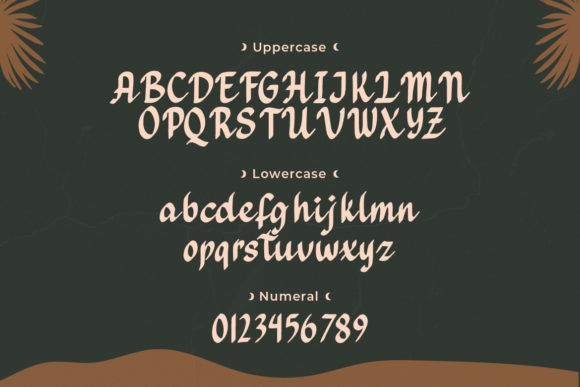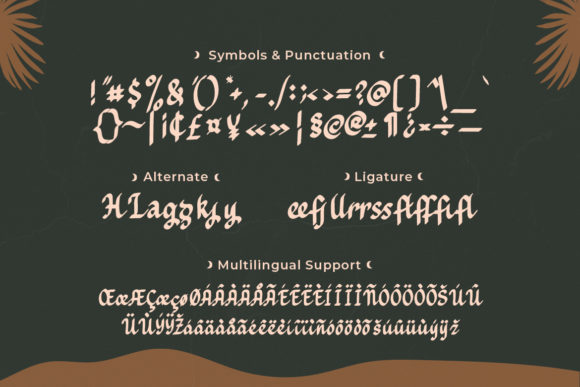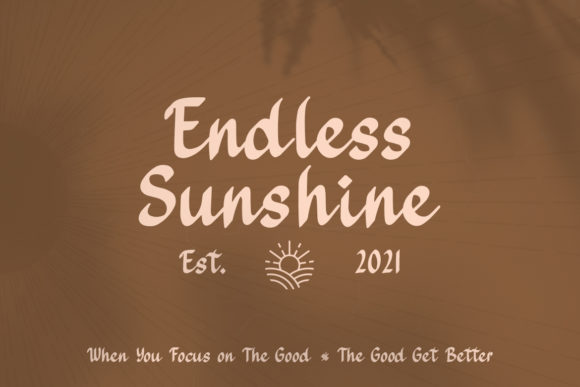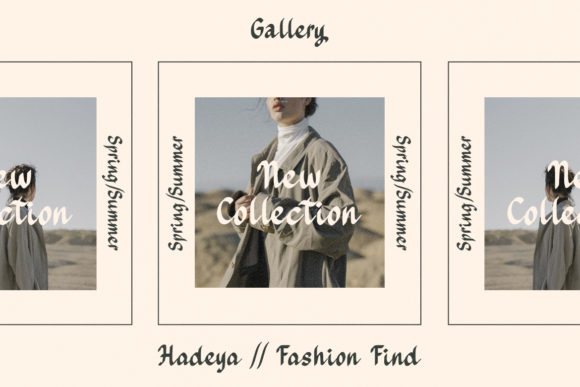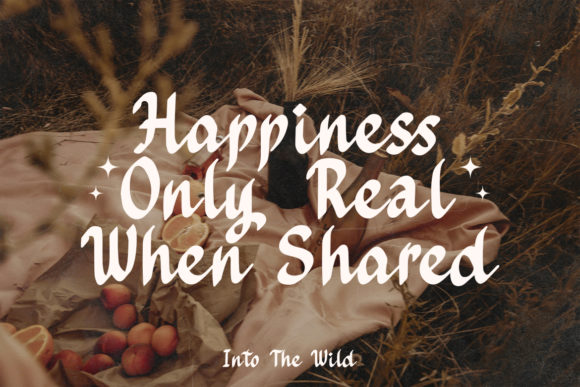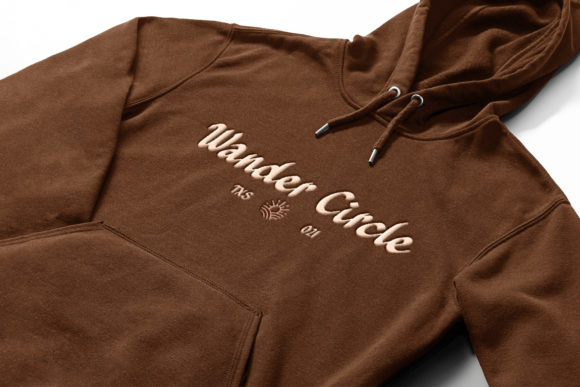
Adding a Personal Touch to Your Designs
Have you ever stumbled upon a beautifully handwritten font that made you stop in your tracks and imagine the possibilities? For designers, finding that perfect font can be a game-changer. It’s the moment when a design goes from good to great, and that’s exactly what the Hadeya Font offers.
This modern paint-brushed handwritten font is a treasure trove for designers looking to add a personal touch to their creations. Whether it’s a wedding invitation, a thank you card, or a quote, Hadeya Font brings a unique charm that sets it apart from the rest. Its versatility makes it a valuable addition to any designer’s toolkit, perfect for logos, business cards, and more.
Hadeya Font Key Features
- Unique Characteristics: Hadeya Font features a unique blend of modern and traditional elements, making it a versatile choice for a wide range of design projects.
- Font Weight: The font has a medium to bold weight, making it suitable for use in headings, titles, and other prominent design elements.
Hadeya Font Review
Overall, I think Hadeya Font is a decent addition to any design arsenal, especially for those who appreciate a unique aesthetic. ✨ The font’s bold and elegant lines make it perfect for headings and titles, while its more refined variations work well for body text.
- ✨ Unconventional design that adds character to any project
- ✨ Wide range of weights and styles to suit different design needs
- ✨ Good for creating a sense of sophistication and elegance
However, there are some limitations:
- ⚠️ May not be suitable for projects requiring a more modern or minimalist look
- ⚠️ Can be difficult to read in smaller font sizes or at a distance
- ⚠️ May not be fully optimized for web use, resulting in potential rendering issues
Overall, I’d say Hadeya Font is a solid choice for designers looking to add some flair to their work. While it may not be perfect for every project, it’s definitely worth considering for those who want to create a unique and eye-catching visual identity.
To get the most out of Hadeya Font, use it for:
1. Creative projects, such as book covers, posters, and social media graphics.
2. Fashion and beauty branding, such as logo designs and product packaging.
3. Editorial and publishing projects, such as magazines and newspapers.
Remember to adjust the font size and style to suit your design and audience.
Alternatives to Hadeya Font
Playfair Display is a luxurious and elegant script font. It’s perfect for use in high-end branding, magazine titles, and advertisements where a touch of sophistication is required. In comparison to Hadeya Font, Playfair Display has a more ornate and refined feel, making it ideal for use in formal settings.
Great Vibes is a modern and stylish script font with a relaxed, handwritten feel. It’s suitable for use in creative and casual branding, social media, and advertising where a friendly and approachable tone is desired. Unlike Hadeya Font, Great Vibes has a more laid-back and informal vibe, making it perfect for use in everyday applications.
Carolyna Pro is a modern and elegant script font with a touch of sophistication. It’s ideal for use in high-end branding, magazine titles, and advertisements where a sense of luxury and refinement is required. In comparison to Hadeya Font, Carolyna Pro has a more refined and polished feel, making it perfect for use in formal settings.